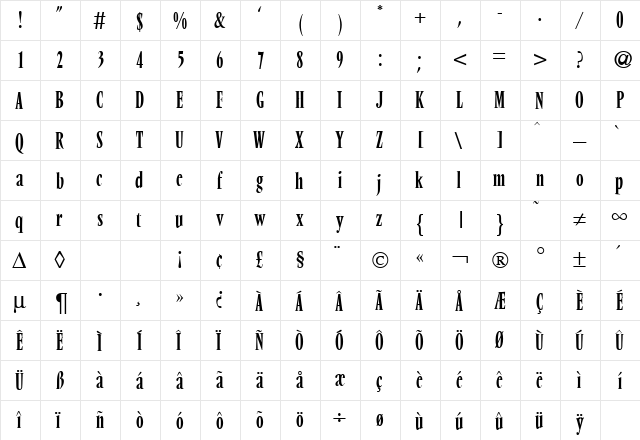
VendomeCondTwo Regular
Design Context for VendomeCondTwo Typeface
VendomeCondTwo offers clean, dependable letterforms without strong stylistic allegiance, making it a practical choice for designers who need flexibility. The condensed width makes it efficient for tight spaces without sacrificing legibility.
Pro Tip: Use VendomeCondTwo in both headline and body roles to test its range before committing to a single application.